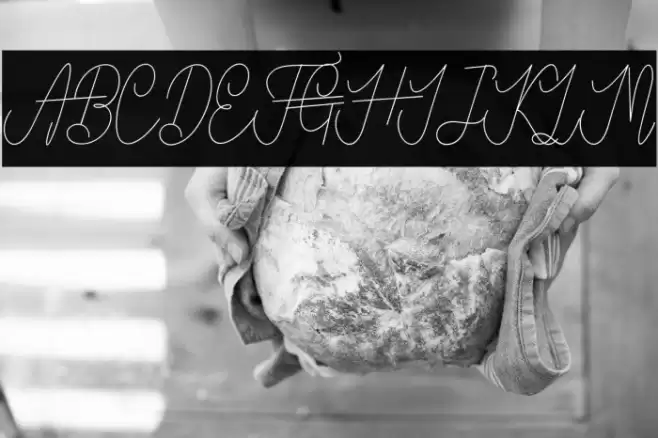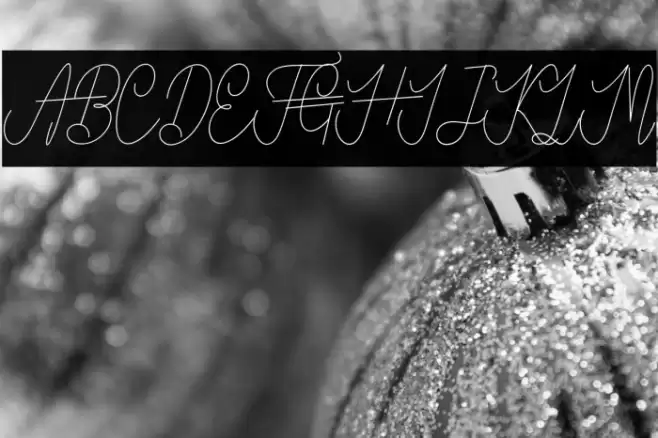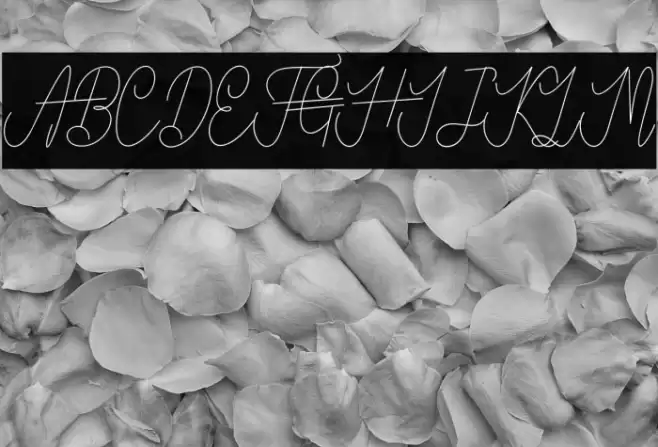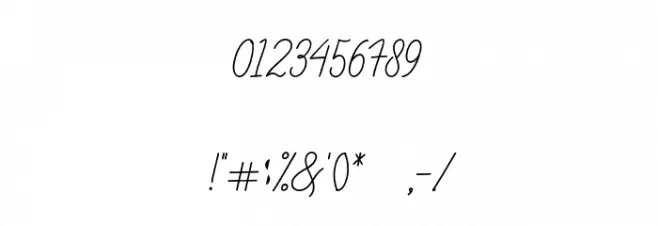
VanBastenNormal-Regular Font
VanBastenNormal-Regular Description
This elegant script font features a flowing, cursive style with delicate, thin strokes that give it a refined and sophisticated appearance. The uppercase letters are characterized by graceful loops and swirls, while the lowercase letters maintain a consistent fluidity, enhancing the overall harmony of the design. The numerals are designed with a similar elegance, ensuring a cohesive look across all characters. Special characters are also included, maintaining the same stylistic elements, making this font versatile for various uses. Its delicate nature and artistic flair make it ideal for projects that require a touch of elegance and class.
An elegant script font with flowing, cursive strokes and refined style from Uncategorized fonts.
- Proposed Projects: Ideal for wedding invitations, elegant branding, personal stationery, and artistic projects.
- Weight: Light
- Overall Style: Elegant, Artistic
- Use Case: Invitations, Branding, Stationery